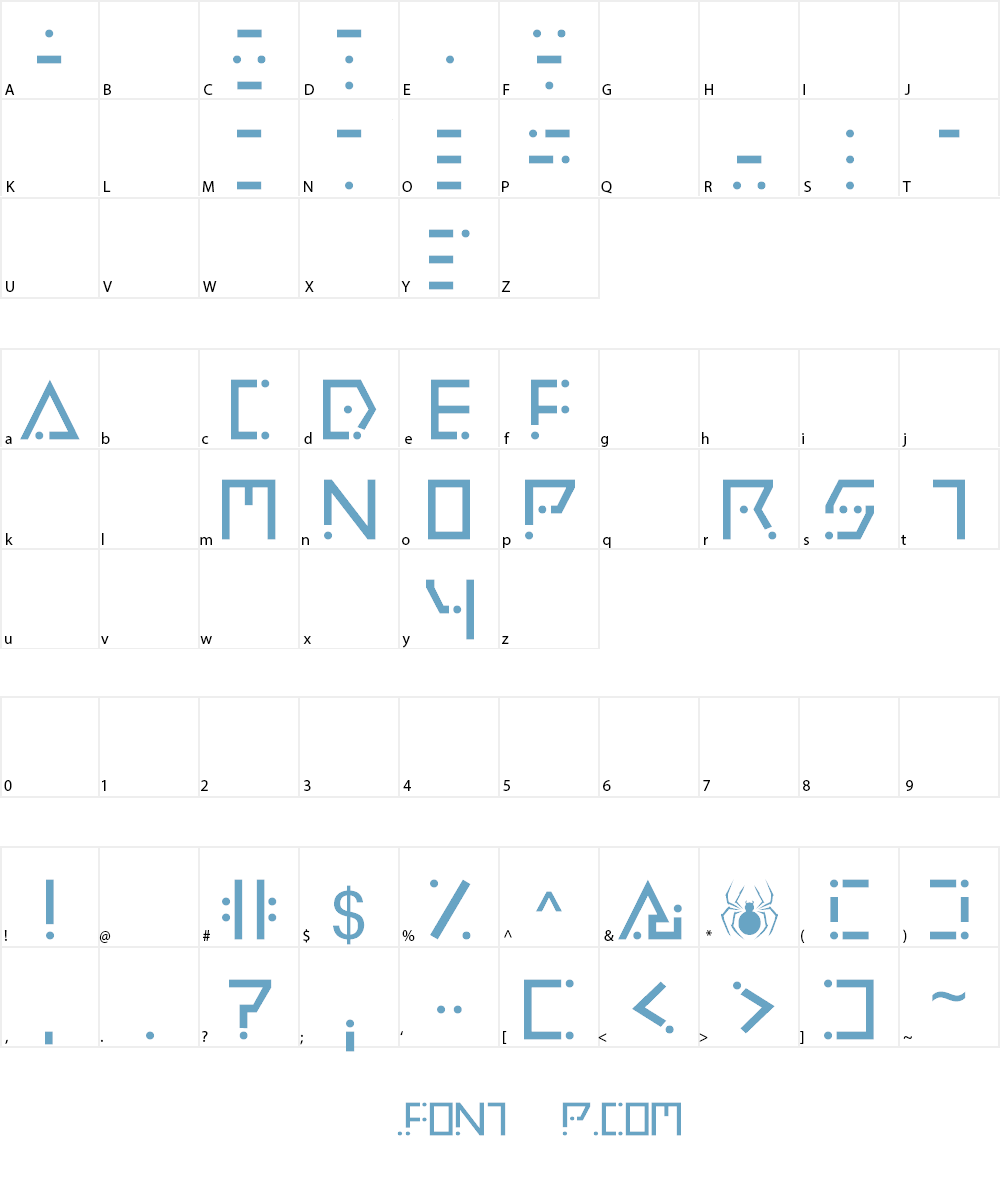
I always wanted to create a typeface based on MORSE CODE ever since I found out that the opening titles to one of my favorite TV shows Inspector Morse by composer Barrington Pheloung the opening bars are in fact morse code, as it spelled out his real name . -. -.. . .- ...- --- ..- .-. a work of sheer genius how did we never guess? His first name however was only revealed to us in episode #31 - Death Is Now My Neighbour. Turns out Morse was named after the vessel of is fathers favorite seafarer Captain Cook. However probably the most famous use of the code that was used across the world as a sign of distress all over the globe (Save Our Soles) ... --- ... however the last official code was sent on January 31, 1999 by the French Navy.
Calling all this is our last cry before our eternal silence
-.-. .- .-.. .-.. .. -. --. .- .-.. .-.. - .... .. ... .. ... --- ..- .-. .-.. .- ... - -.-. .-. -.-- -... . ..-. --- .-. . --- ..- .-. . - . .-. -. .- .-.. ... .. .-.. . -. -.-. .
The code is essentially a binary code of ones and zeroes it was created by Samuel F. B. Morse the inventor of the telegraph circa 1844, my upper case letters show the stems and the apex points of the written alphabet that show a visual representation of the code this is the way it was designed to help remember the code for each letter . For example A is representative of the dot at the top of the apex and the dash is the horizontal bar, all the codes for all the letters were designed in this way to make them easier to learn . Hope you like my version the lower case incorporates the same number of dots and longer dashes used in the code at different angles joined together to form the glyph.
... .--. .. -.. . .-. .- -.-- ... ..-. --- -. - ...